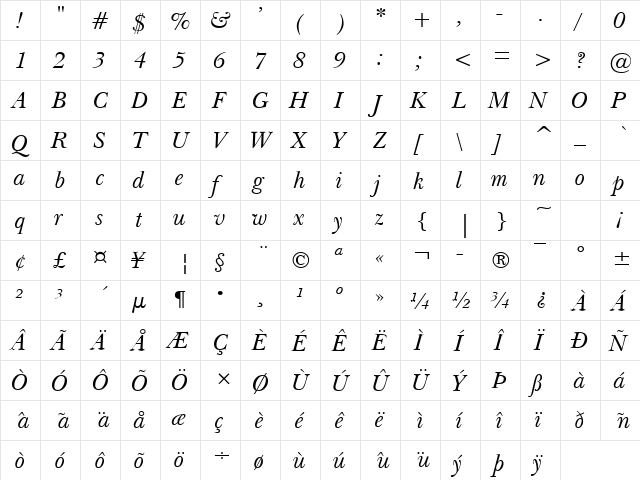
Baskerton Italic
Design Context for Baskerton Typeface
Baskerton is a composed and adaptable typeface that performs quietly and consistently across a wide range of design contexts. Its italic angle brings a sense of urgency and motion to the letterforms.
Pro Tip: Try Baskerton for annotation and caption copy alongside an upright companion — the contrast in angle creates a dynamic but ordered typographic system.